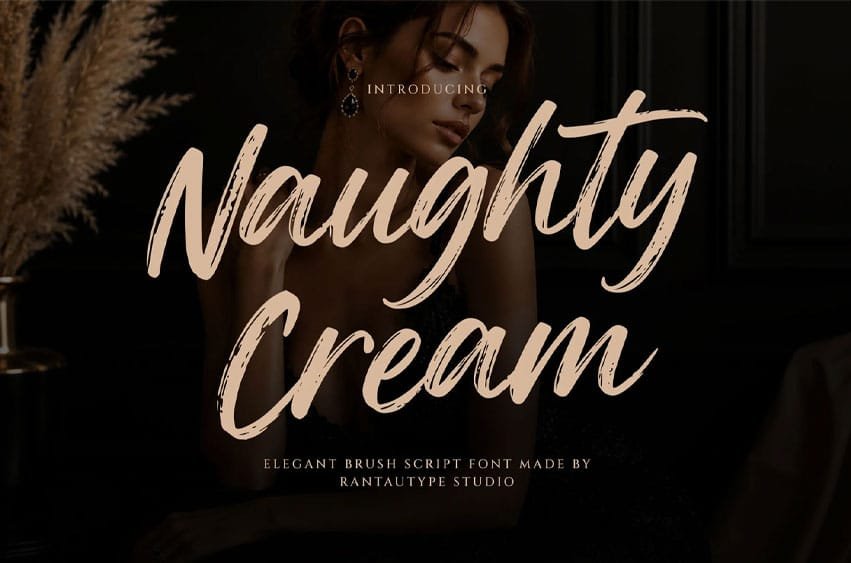
Naughty Cream Font is elegant brush font showcases a refined balance between luxury, confidence, and artistic expression. Designed with fluid hand-painted strokes, the lettering captures the essence of modern calligraphy while maintaining a bold and fashionable personality. Each character flows naturally into the next, creating a sense of movement and sophistication that immediately draws attention
Naughty Cream is a perfect choice for any creative endeavor, chic, lifestyle design such as logos, title, watermark on photography, cover, branding, display and magazine, wedding event, corporate brand, quotes, album cover, business card, business project, company branding and more project with Elegant taste.